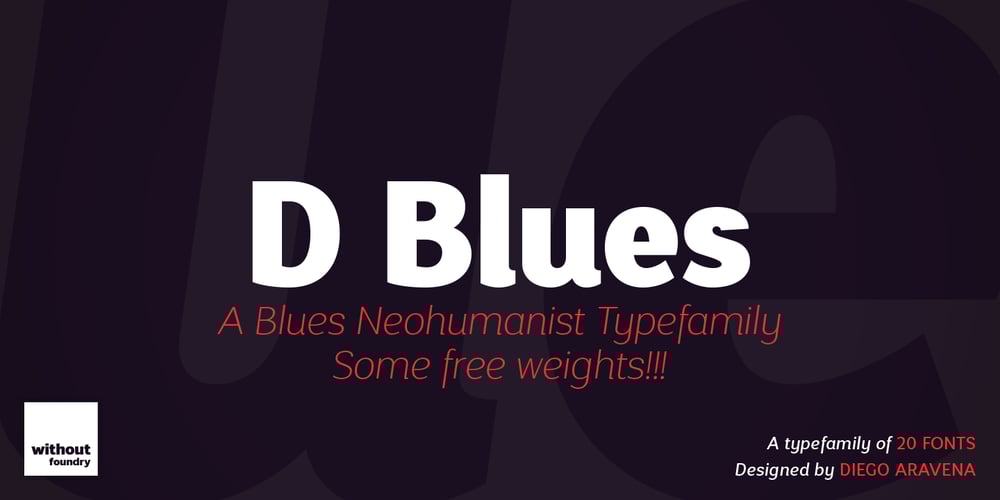
D Blues
D Blues font
D Blues Font Family was designed by Diego Aravena Silo and published by W Type Foundry. D Blues contains 20 styles and family package options. D Blues its a sans serif typefamily of 9 weights plus matching italics. It is inspired by the neo humanist typefaces with a mix of 20st grotesque sans typeface. D Blues serve very well in web & print design areas, body text, excellent web-font legibility etc… D Blues is equipped with a complete set of opentype features including alternative glyphs, fractions, ligatures and many more. It is perfectly suited for highlighting lettering, magazines, web, interaction design, advertising & logotypes.